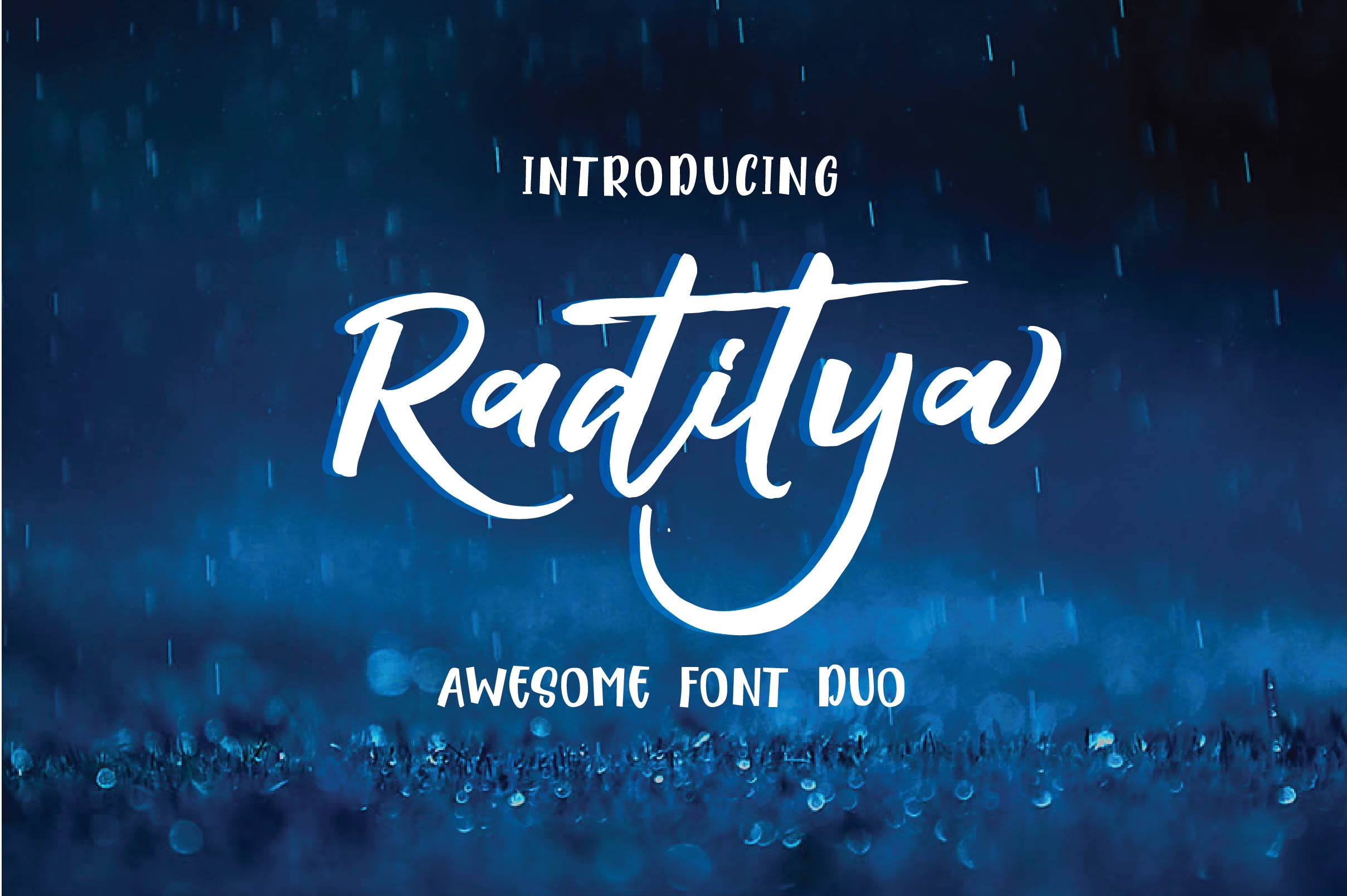
Raditya Font Duo
Raditya is a beautiful hand lettering, It suitable for Signature, greeting cards, T-Shirt, Logo, Branding or any design that you create.comes with a complete set of standard characters, Alternates, Punctuation & international glyphs